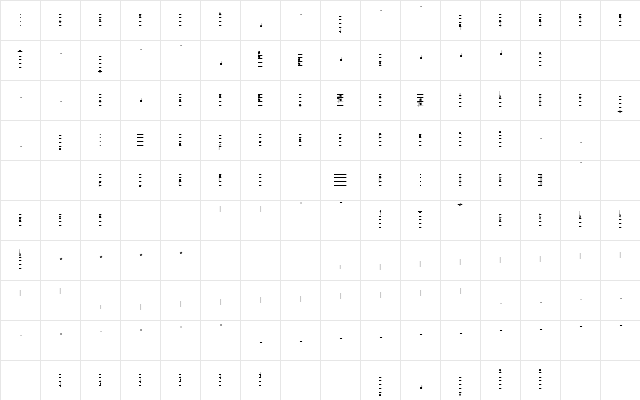
Complete Meinrad Tes T glyph index. Displaying only characters natively supported by Meinrad Tes T font.
Meinrad Tes is a composed and adaptable typeface that performs quietly and consistently across a wide range of design contexts.